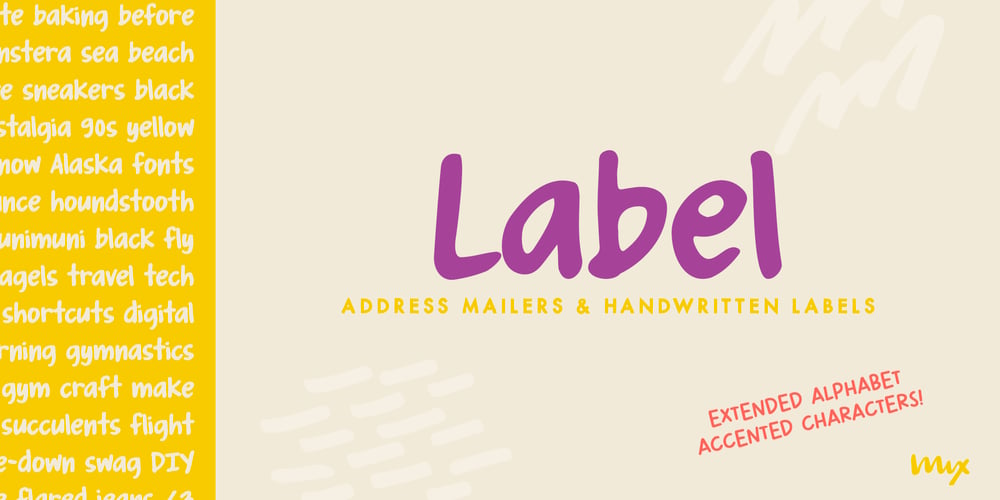
Mix Label Font Family was designed by Mikko Sumulong and published by Mix Fonts. Mix Label contains 1 styles and family package options. Get the handwritten, labeled look you love with MIX LABEL – the perfect font for creating clean, thick designs. Inspired by the look of school supplies labeled with a Sharpie marker, this font is ideal for replicating the handwritten style of labels and addresses on mailers. Whether you’re looking to add a personal touch to your branding or simply want a unique font, MIX LABEL has got you covered. Don’t settle for boring, generic fonts – label your designs with MIX LABEL and stand out from the crowd.Includes the following characters: ABCDEFGHIJKLMNOPQRSTUVWXYZ abcdefghijklmnopqrstuvwxyz 0123456789 !@$#%^&*()`~♥❤✿•· ÷×+−±≈=≠≥≤[]‹›:;'”,.|/?{}“”‘’-–—_ …©®™«»°¹²³ªº¡¿x₱¢€£¥§№† ÁÀÂÄÃÅĂĀĄÆĆĈČÇÐĐÉÈÊËĖĒĘĜĤIÍÌÎÏĪĮĴŁŃÑŇ ÓÒÔÖÕØŌŐŒŔŘŚŜŠȘŤȚÚÙÛÜŮŰŪŲẂẀŴÝŶŸŹẐŽŻÞ áàâäãåăāąæćĉčçðđéèêëėēęĝĥıíìîïīįĵłńñň óòôöõøōőœŕřśŝšșťțúùûüůűūųẃẁŵýŷÿźẑžżþß Discretionary Ligatures: bb dd ee gg kk ll mm nn oo pp tt